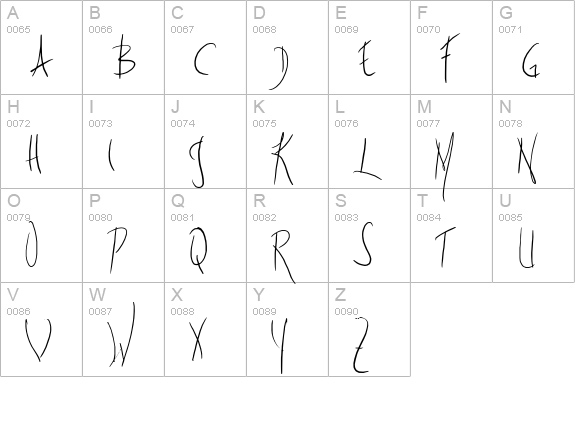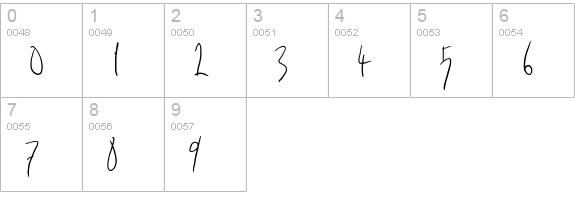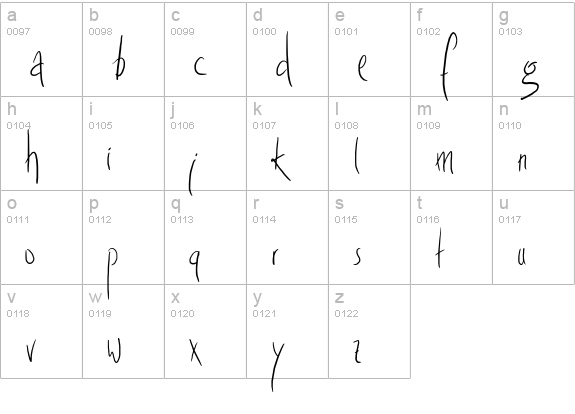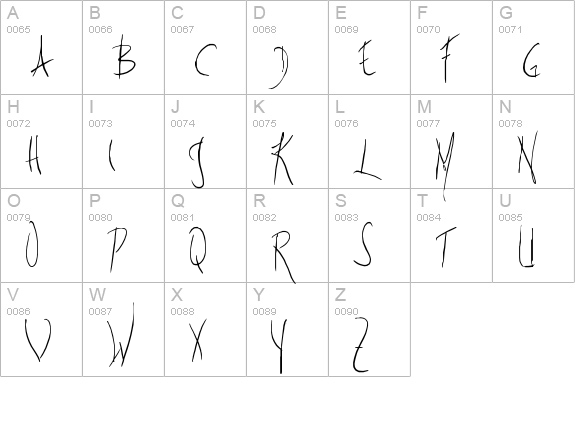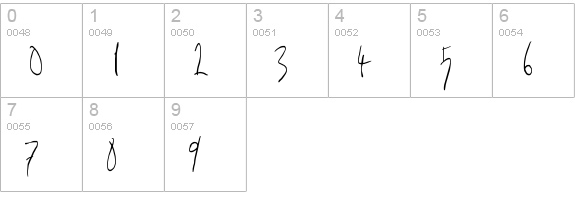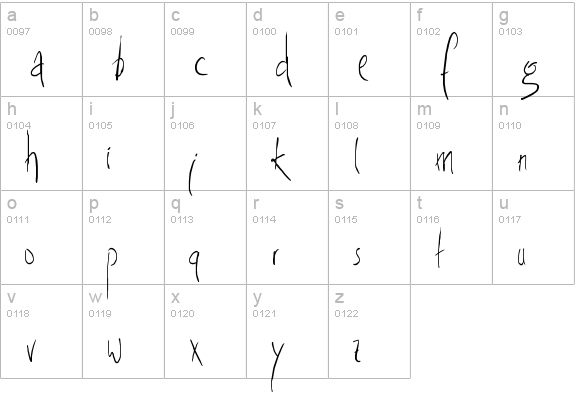
Fright Night Font Details
Introducing the captivating Fright Night font, a spooky and playful typeface perfect for adding a touch of Halloween spirit to your designs. With its eerie yet whimsical appeal, Fright Night is sure to make a bold statement in any project. This font features unique, hand-drawn letters that evoke a sense of mystery and excitement. Best of all, Fright Night is available for free download at FontsMarket.com. Whether you're working on a haunted house flyer, a creepy party invitation, or a chilling website banner, this font will set the mood perfectly. Embrace the dark side with Fright Night and let your creativity run wild this Halloween season.